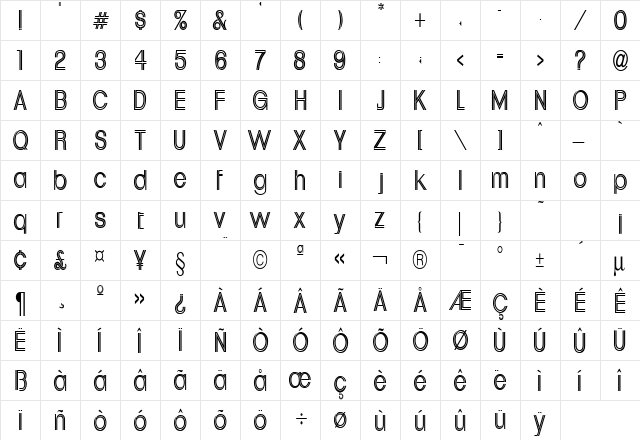
Upperville Condensed Normal
Design Context for Upperville Condensed Typeface
Upperville Condensed is a composed and adaptable typeface that performs quietly and consistently across a wide range of design contexts. The condensed width makes it efficient for tight spaces without sacrificing legibility.
Pro Tip: Use Upperville Condensed in both headline and body roles to test its range before committing to a single application.